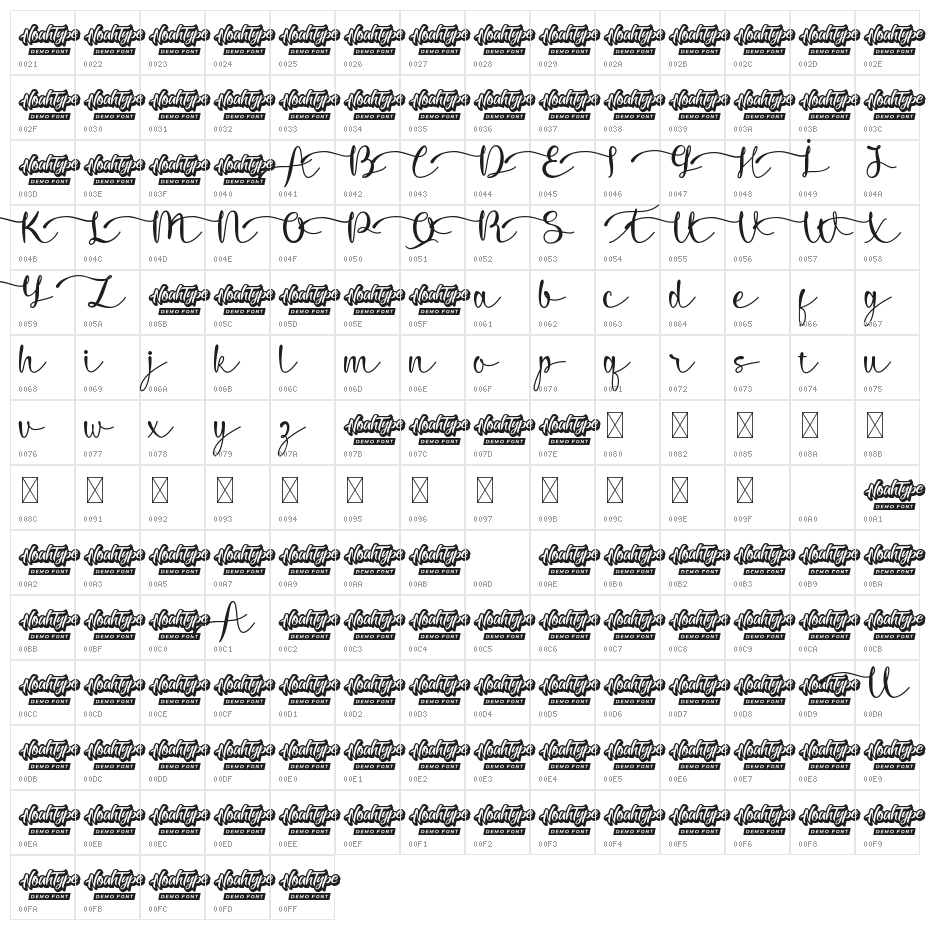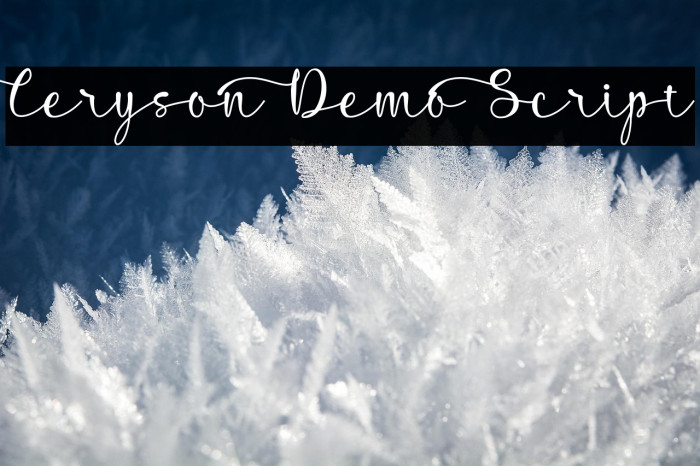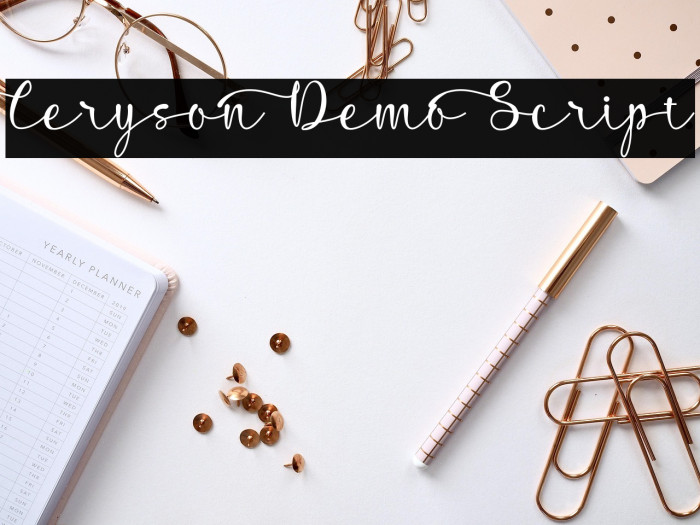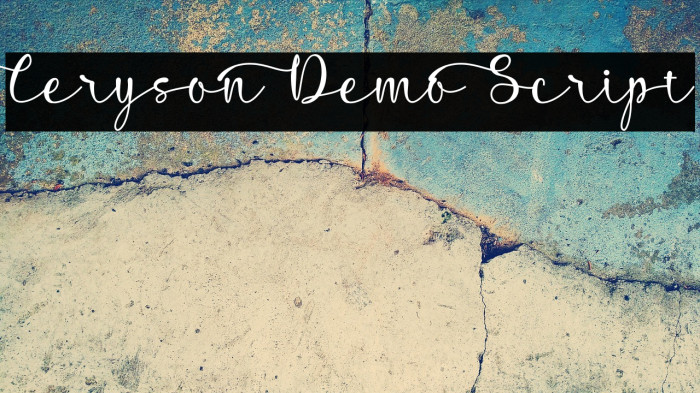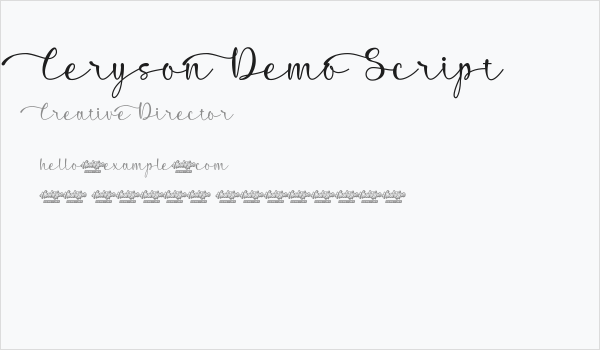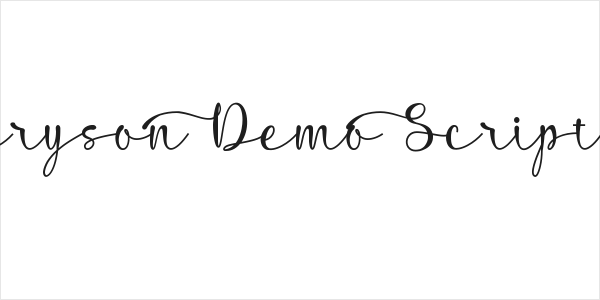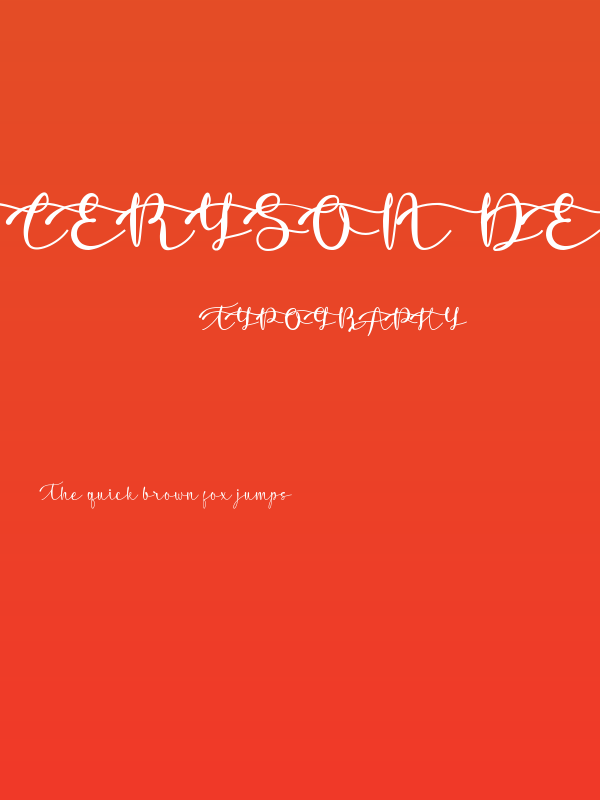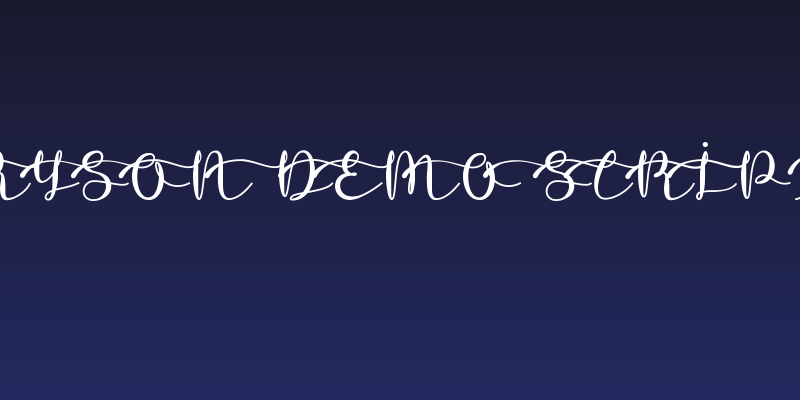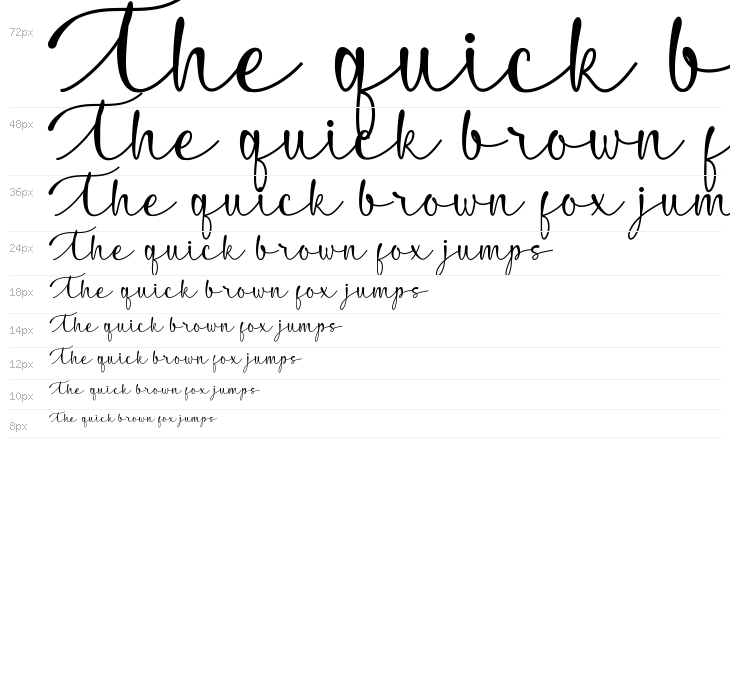
Ceryson Demo Script Font
Ceryson Demo Script Description
This elegant script font features flowing, interconnected letters that create a sense of movement and grace. The uppercase letters are characterized by their sweeping curves and loops, while the lowercase letters maintain a consistent fluidity, making them ideal for creating a cohesive and stylish look. The font's design is both sophisticated and approachable, with a hand-drawn quality that adds a personal touch. The characters are well-spaced, ensuring readability while maintaining the artistic flair of the script. This font is perfect for projects that require a touch of elegance and personality.
| Overall Style | Elegant |
| Use Case | Logos, Invitations, Decorative text |
| Proposed Projects | Ideal for wedding invitations, greeting cards, branding, and social media graphics. |